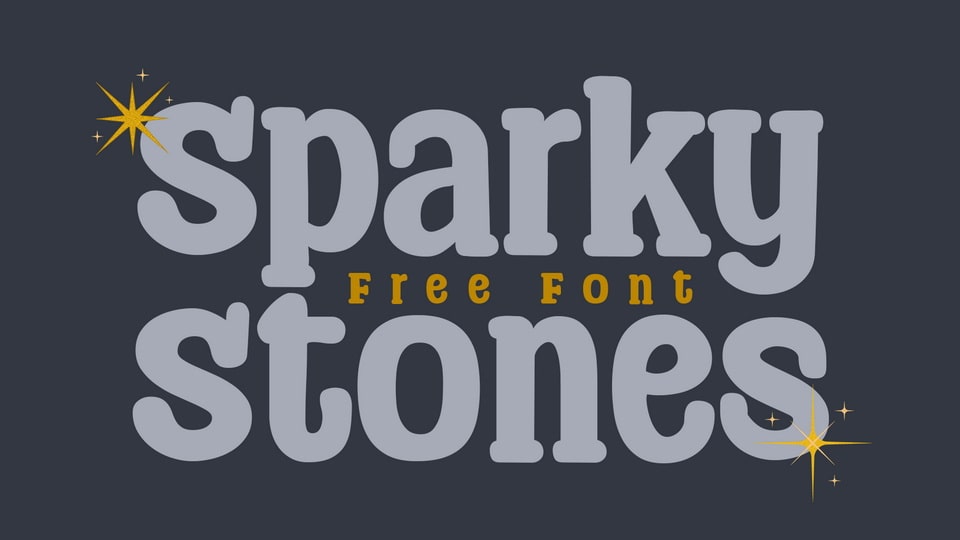
Download Sparky Stones font, a charming, bold, fun handwritten typeface. Sparky Stones is perfect for cartoon-related designs, children’s games, or just any creation that requires a lovely touch
Designer: Niskala Huruf